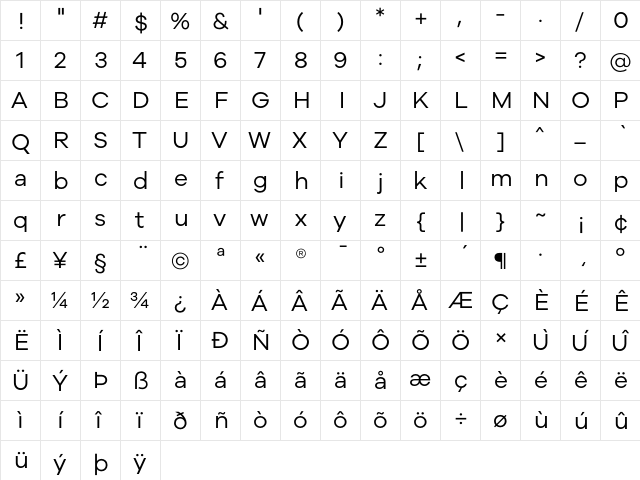
Galyon Regular
Design Context for Galyon Typeface
Galyon is a composed and adaptable typeface that performs quietly and consistently across a wide range of design contexts.
Pro Tip: Use Galyon in both headline and body roles to test its range before committing to a single application.